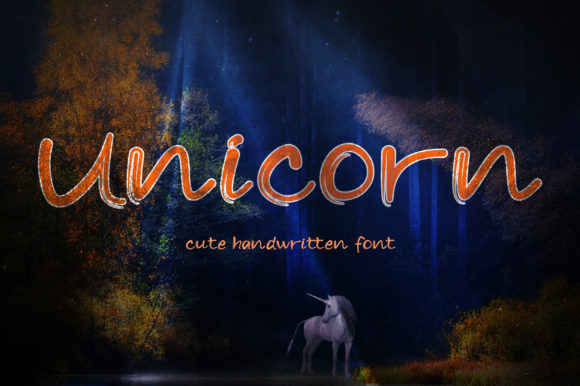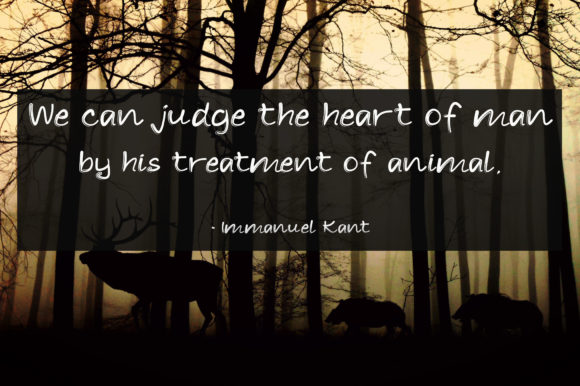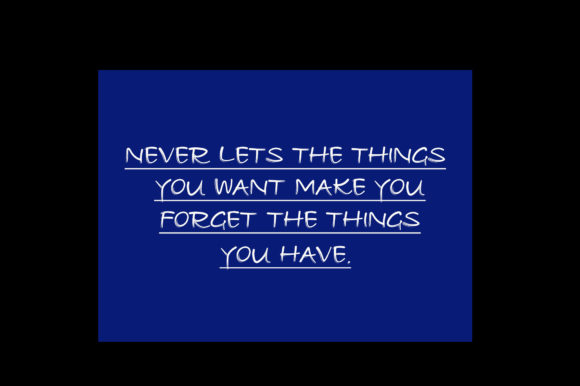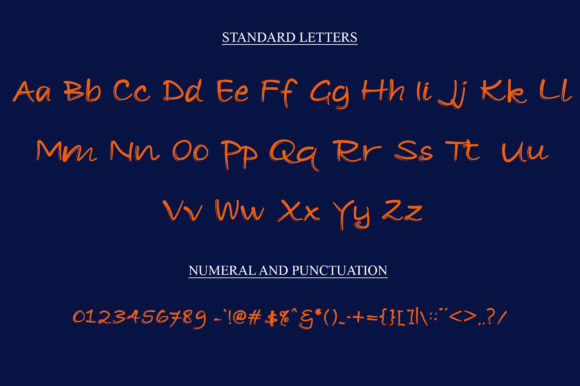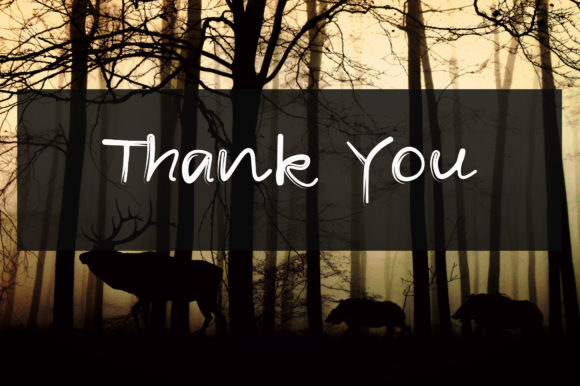
Unicorn Font
About Unicorn Font
Unicorn is a cute and down to earth brushed handwritten font. Not too thin and not too thick, balanced and varied, this font was designed to enhance the beauty of your projects.